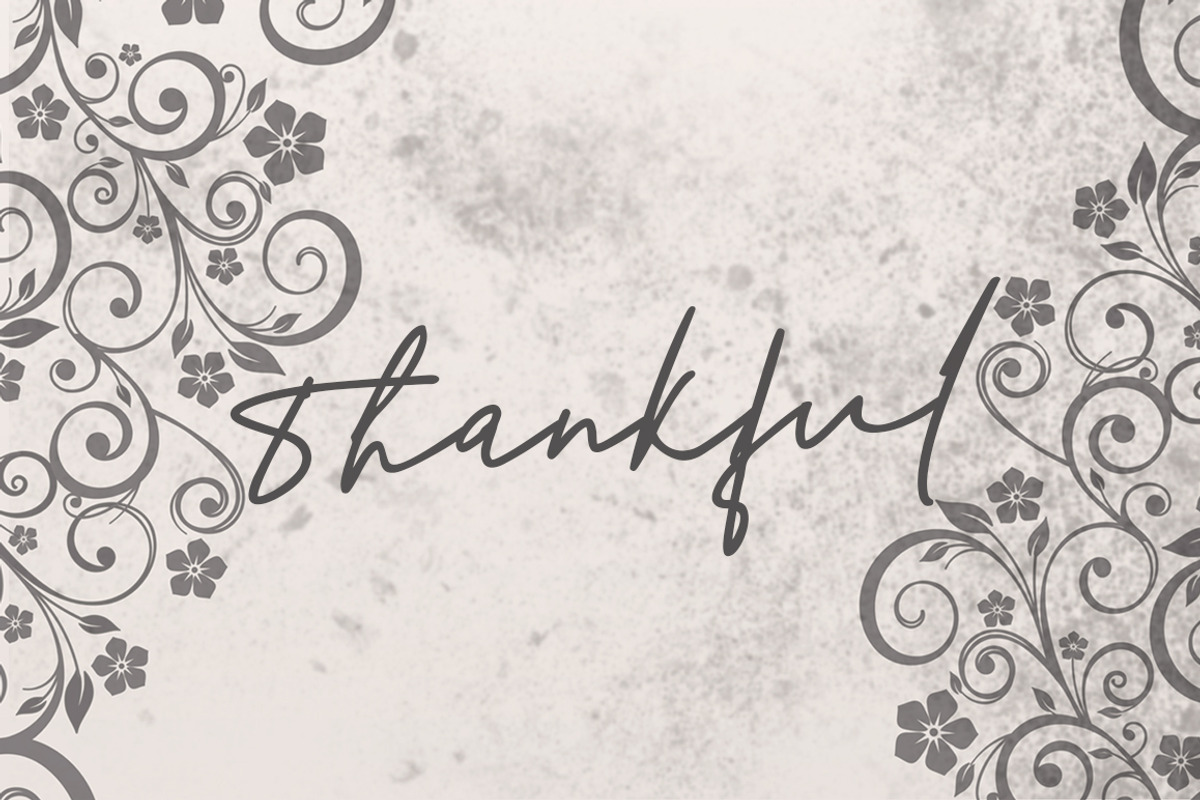
Richland Signature Luxury
Introducing
Richland A new and beautiful Signature font, created to meet your needs in creating a beautiful and elegant design, this font is special for you.
Richland Font is perfect for branding, wedding invitations, magazines, mugs, business cards, quotes, posters, and more you can use on your big project would be very beautiful.
Richland This font has been equipped with OpenType features and has many glyphs. and of course by having many of these glyphs will be able to choose the letters according to your liking, lots of variations and options for each letter, so you can customize your design choices and also have other languages supported.